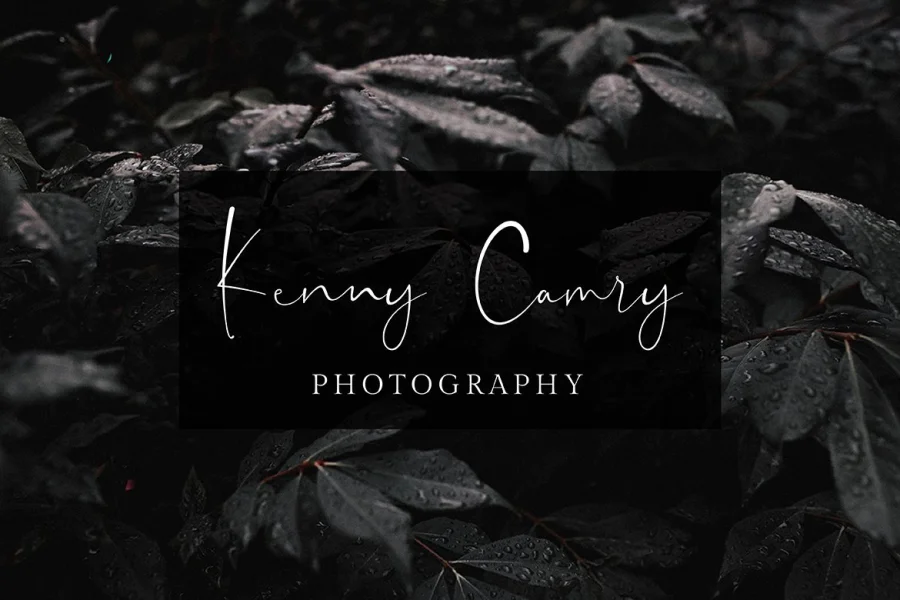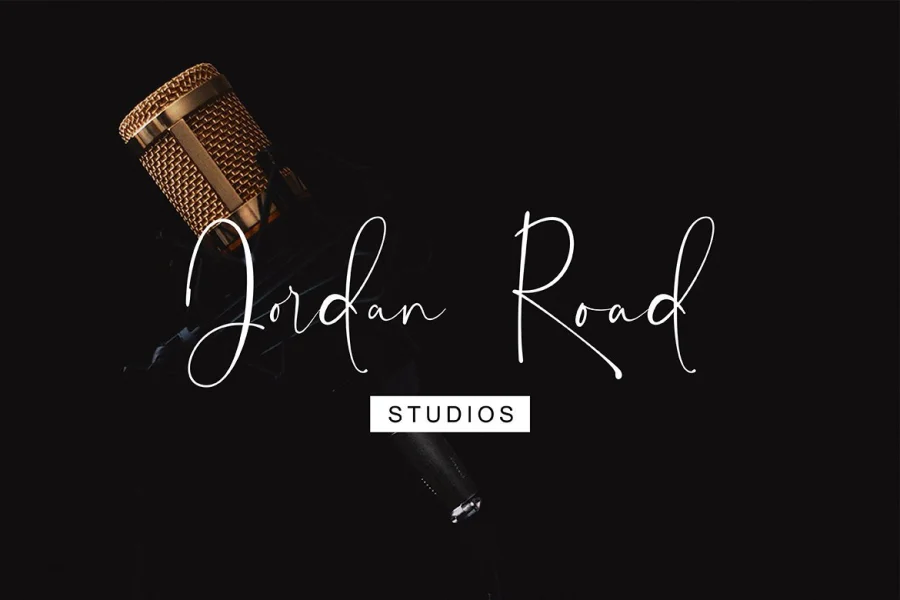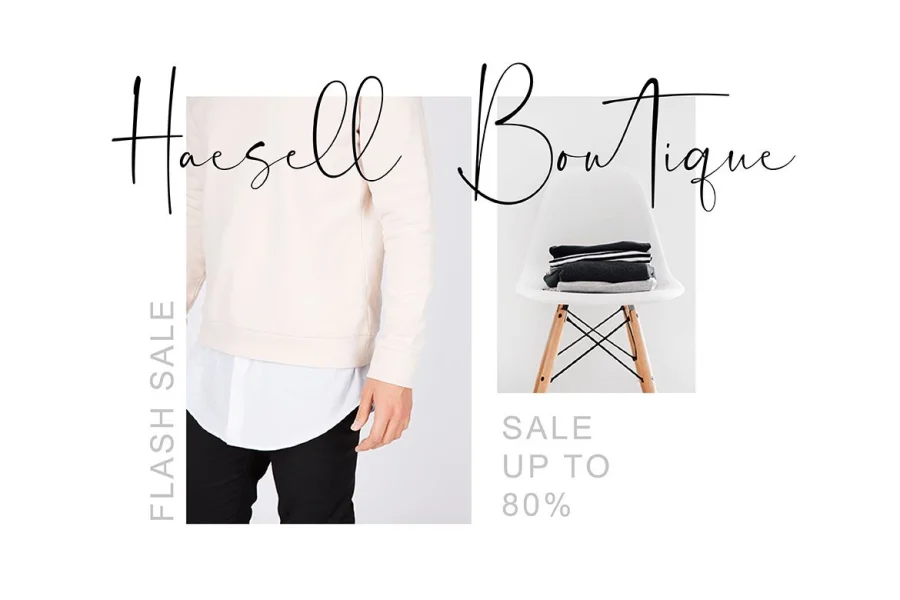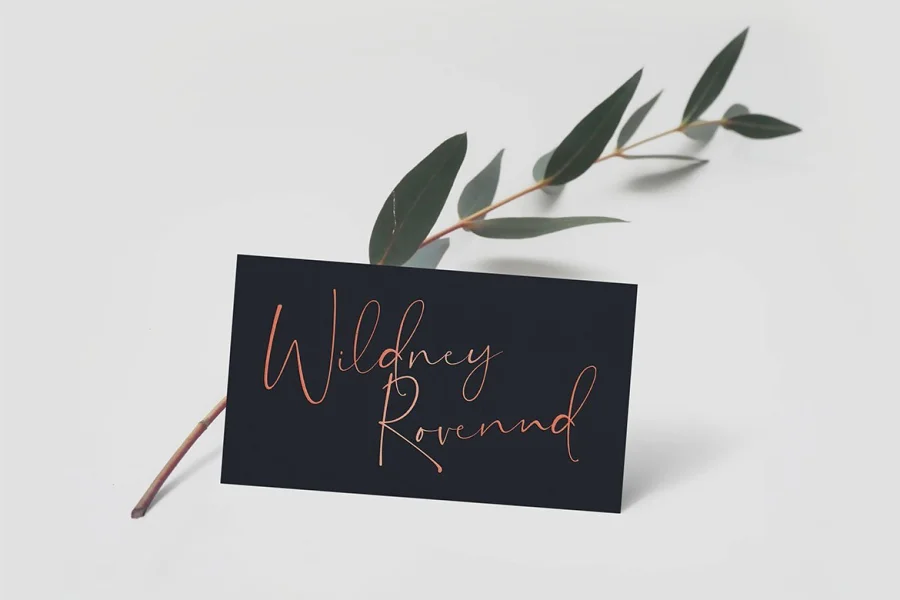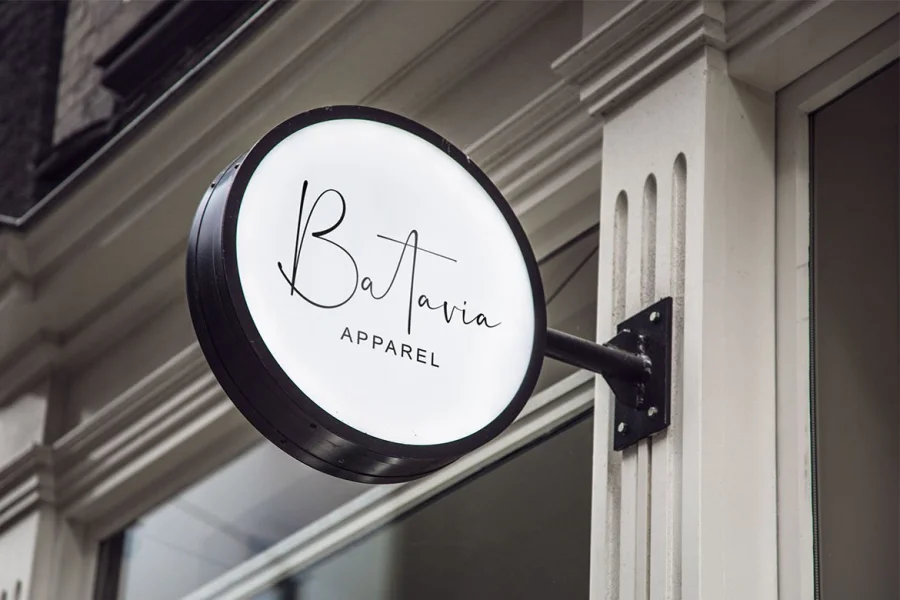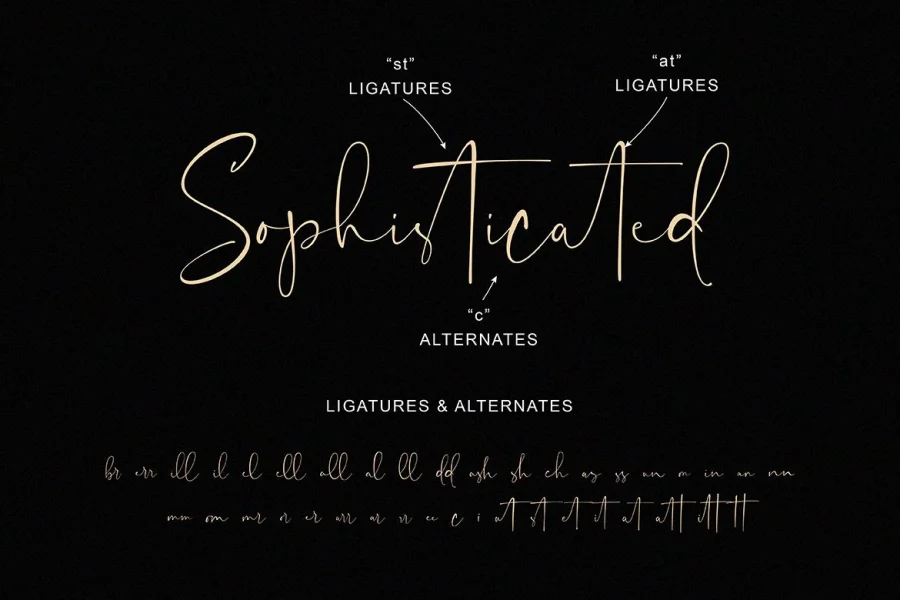
Undercut script is a font inspired by an undercut hairstyle that looks masculine. It is suitable for your work that requires a natural and masculine signature style.